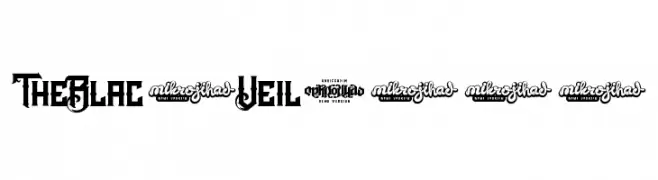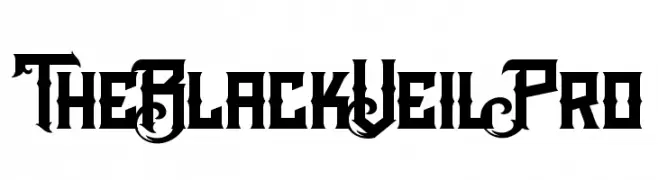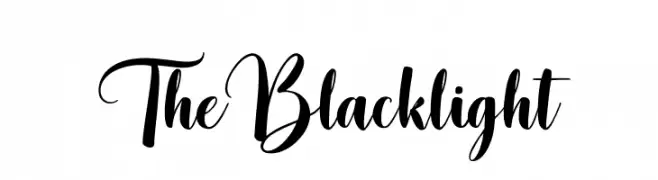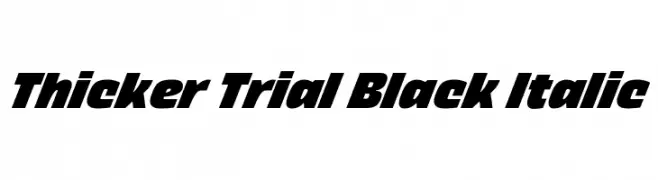
Bold, whimsical display font with hand-drawn, uneven shapes.
A bold, italic script font with decorative loops and high contrast.
A dynamic and elegant script font with flowing, cursive letterforms.
A bold, Gothic-inspired font with intricate details and sharp edges.
A bold, impactful font with thick, uniform strokes and geometric shapes.
A bold, italic font with a dynamic and modern style.
A bold, slanted font with a dynamic and modern style.
A bold, modern font with thick strokes and geometric shapes, perfect for impactful headlines.